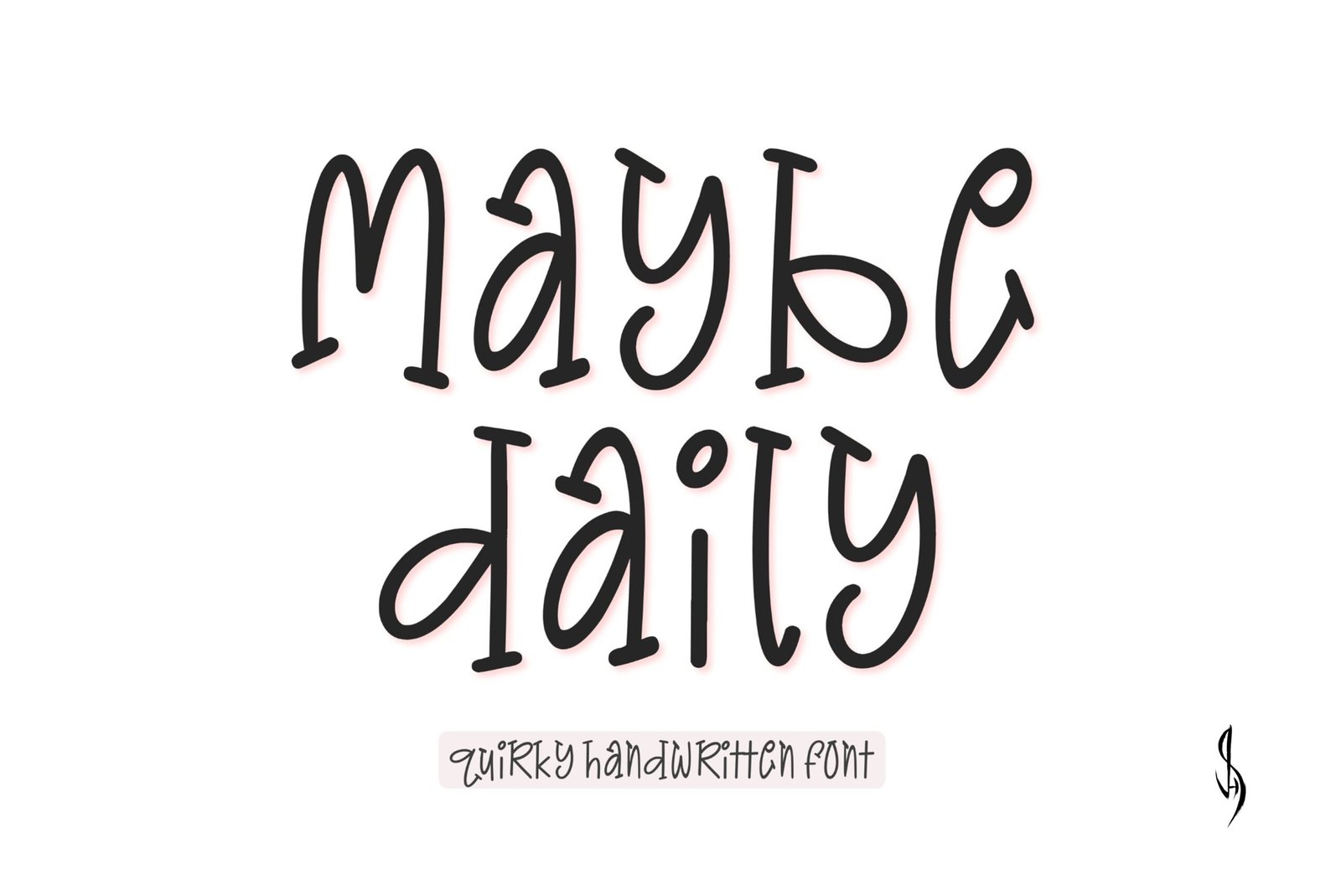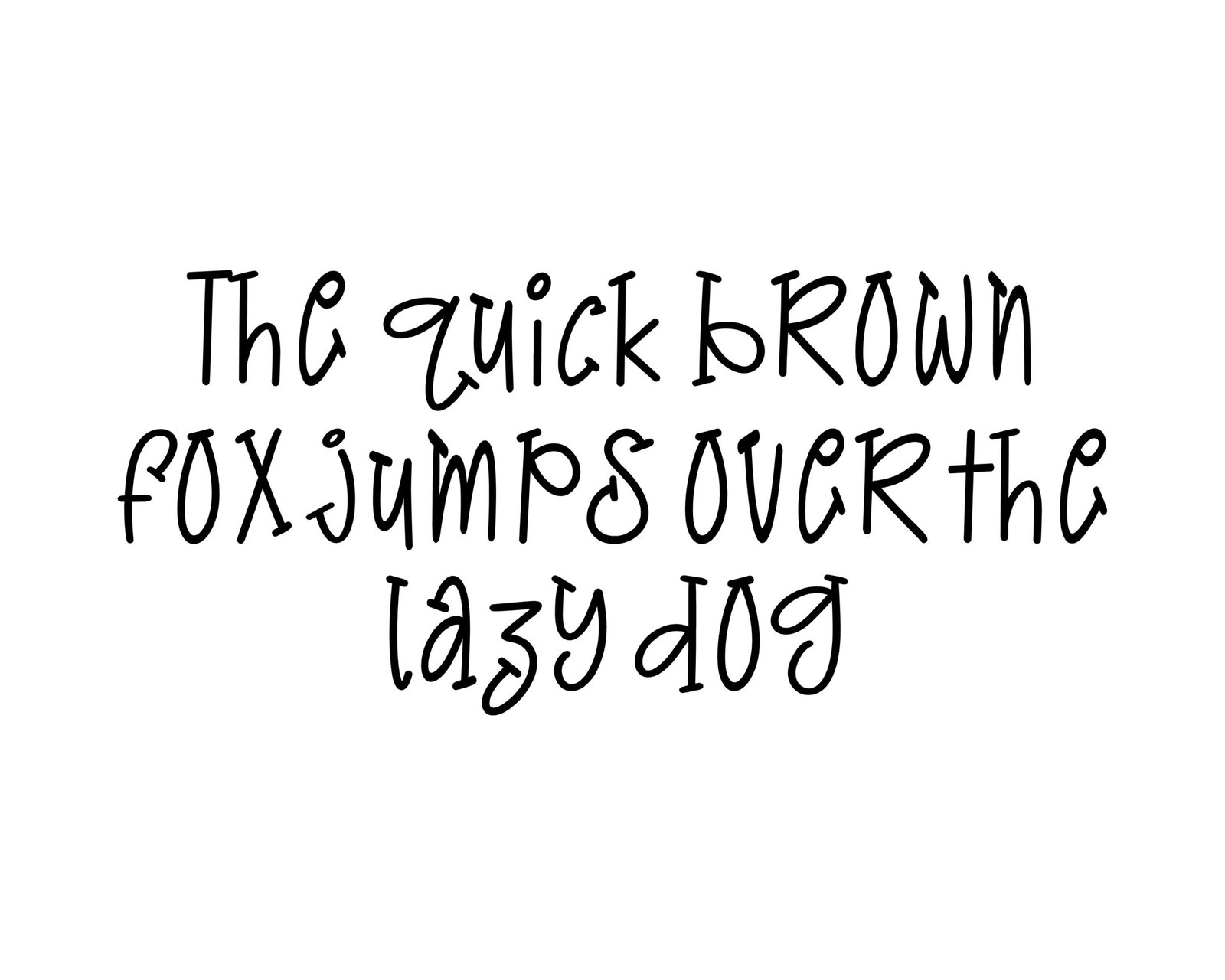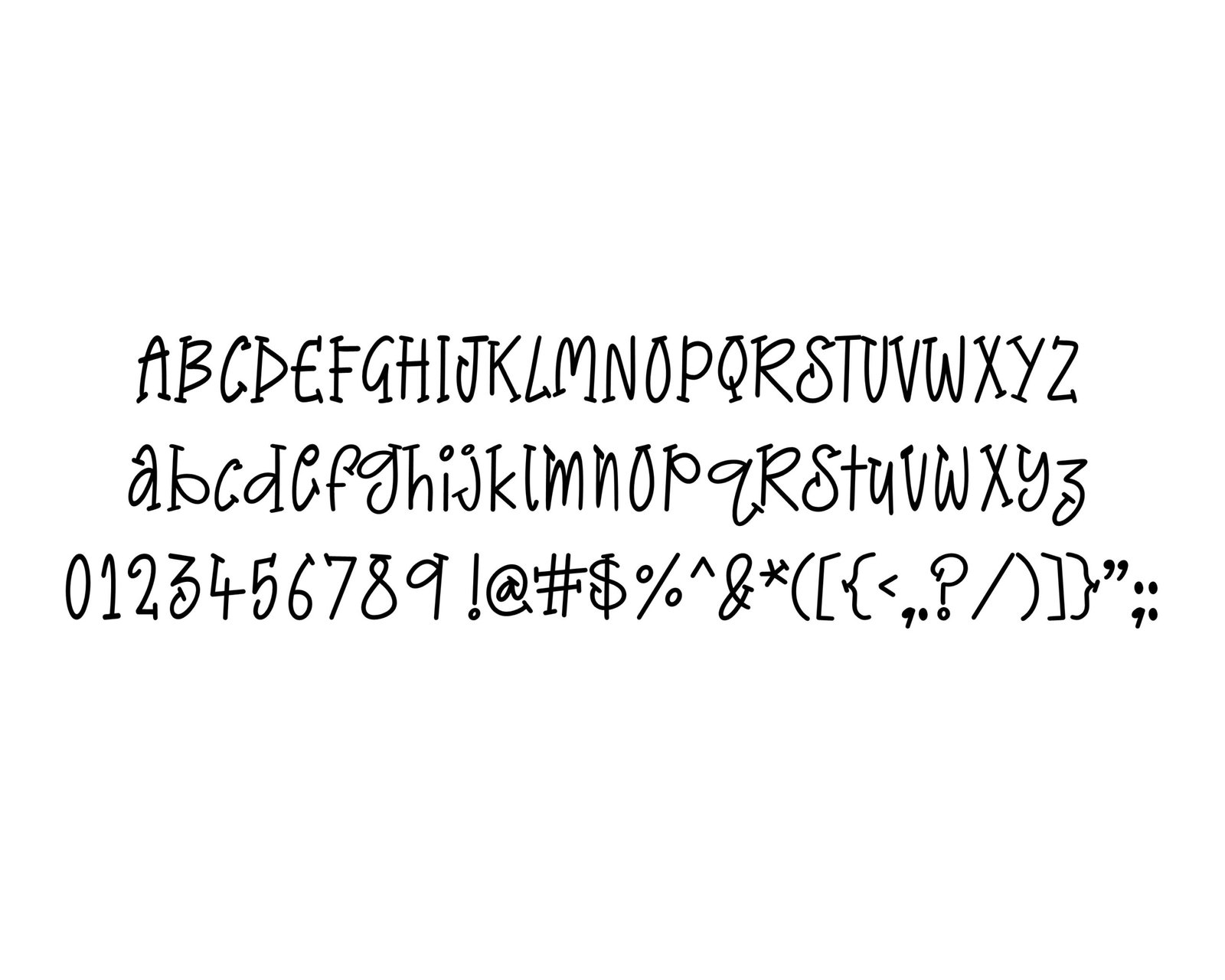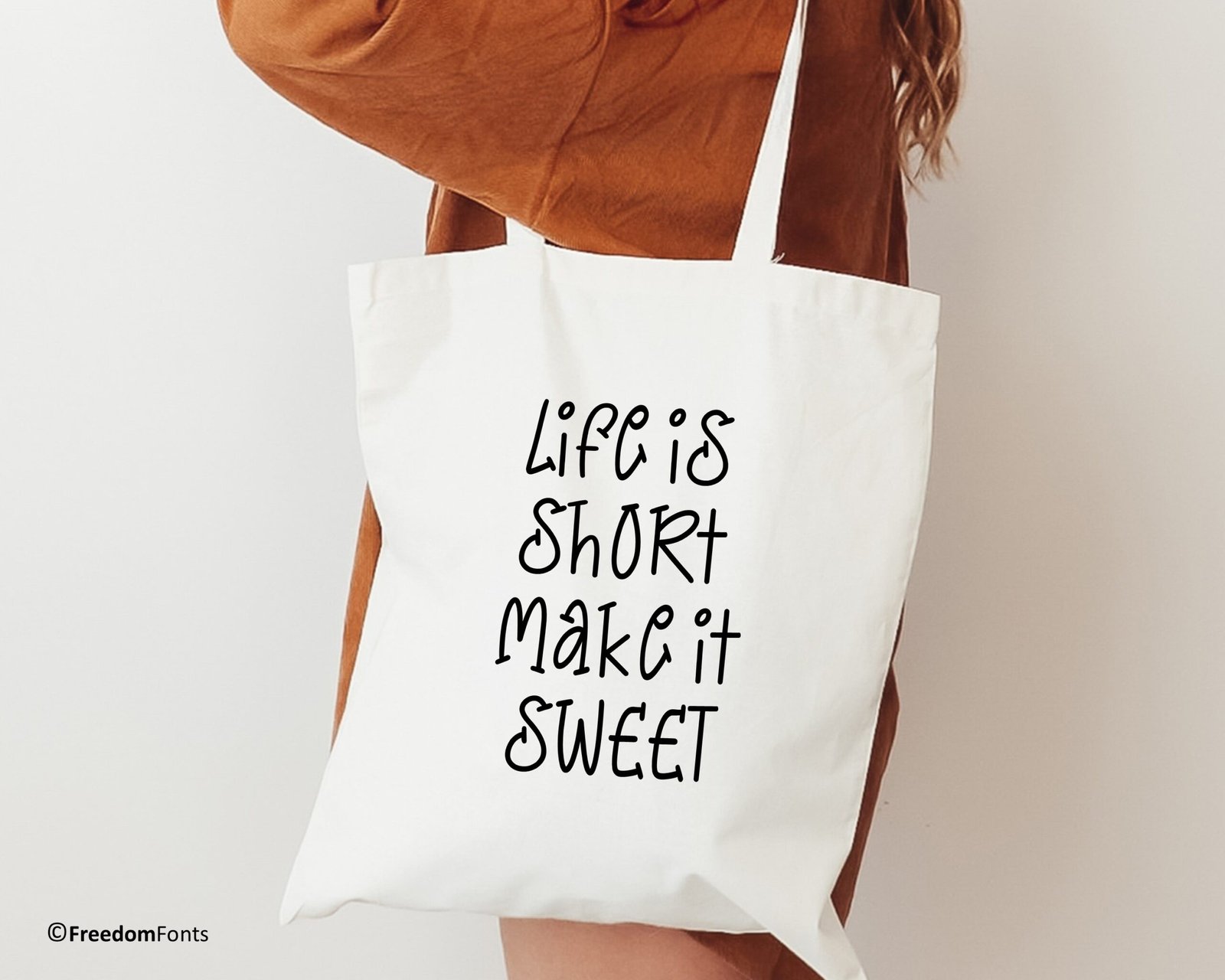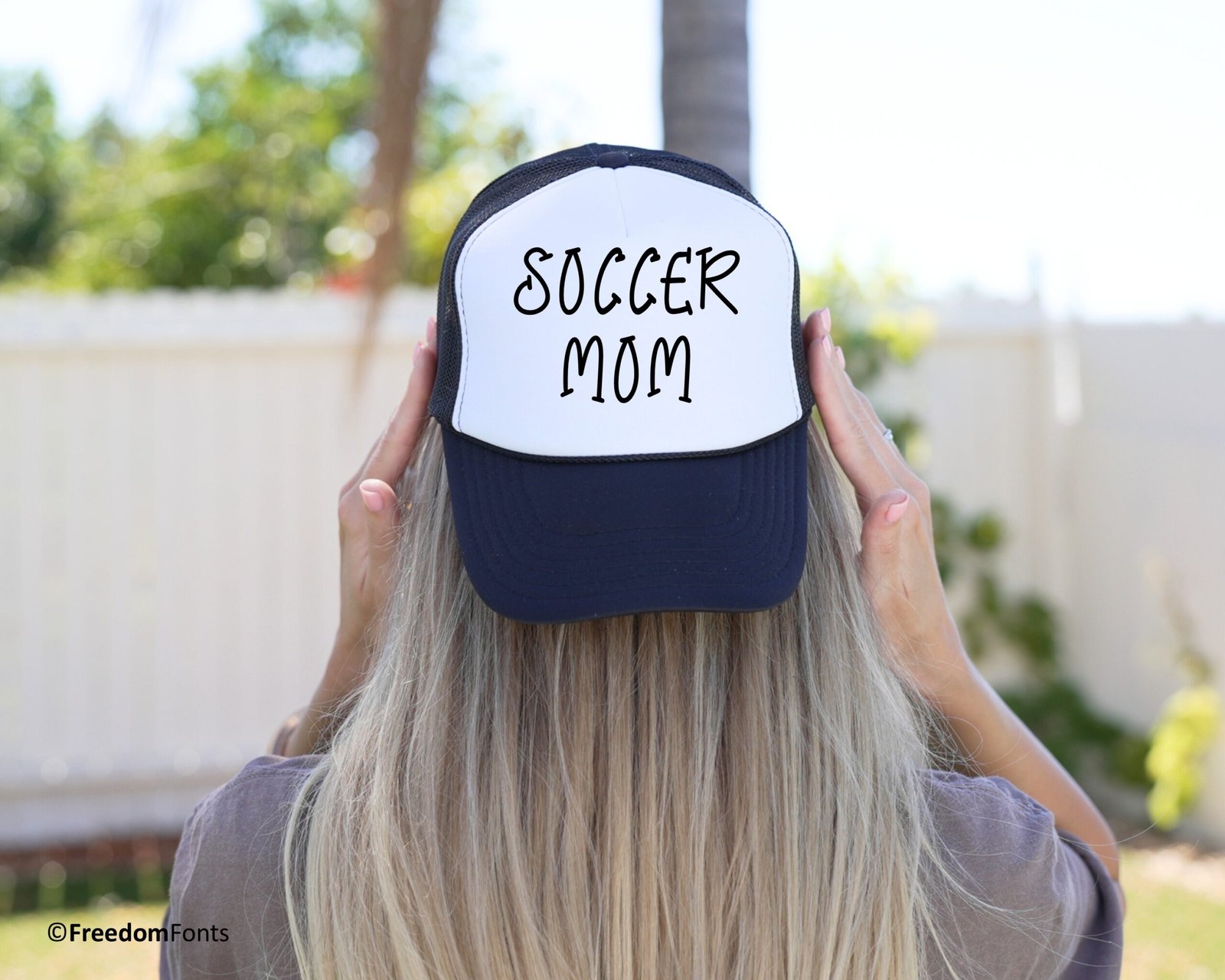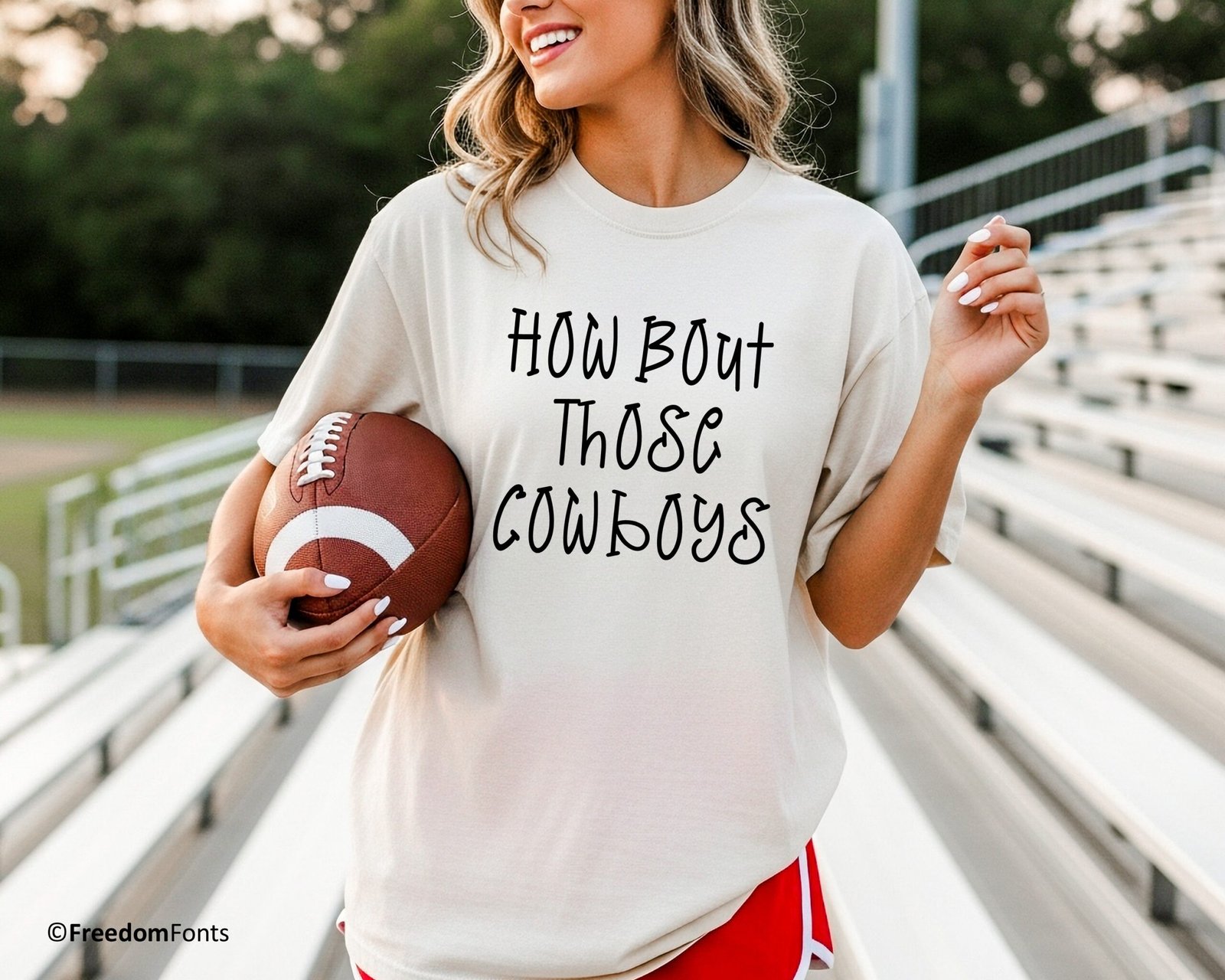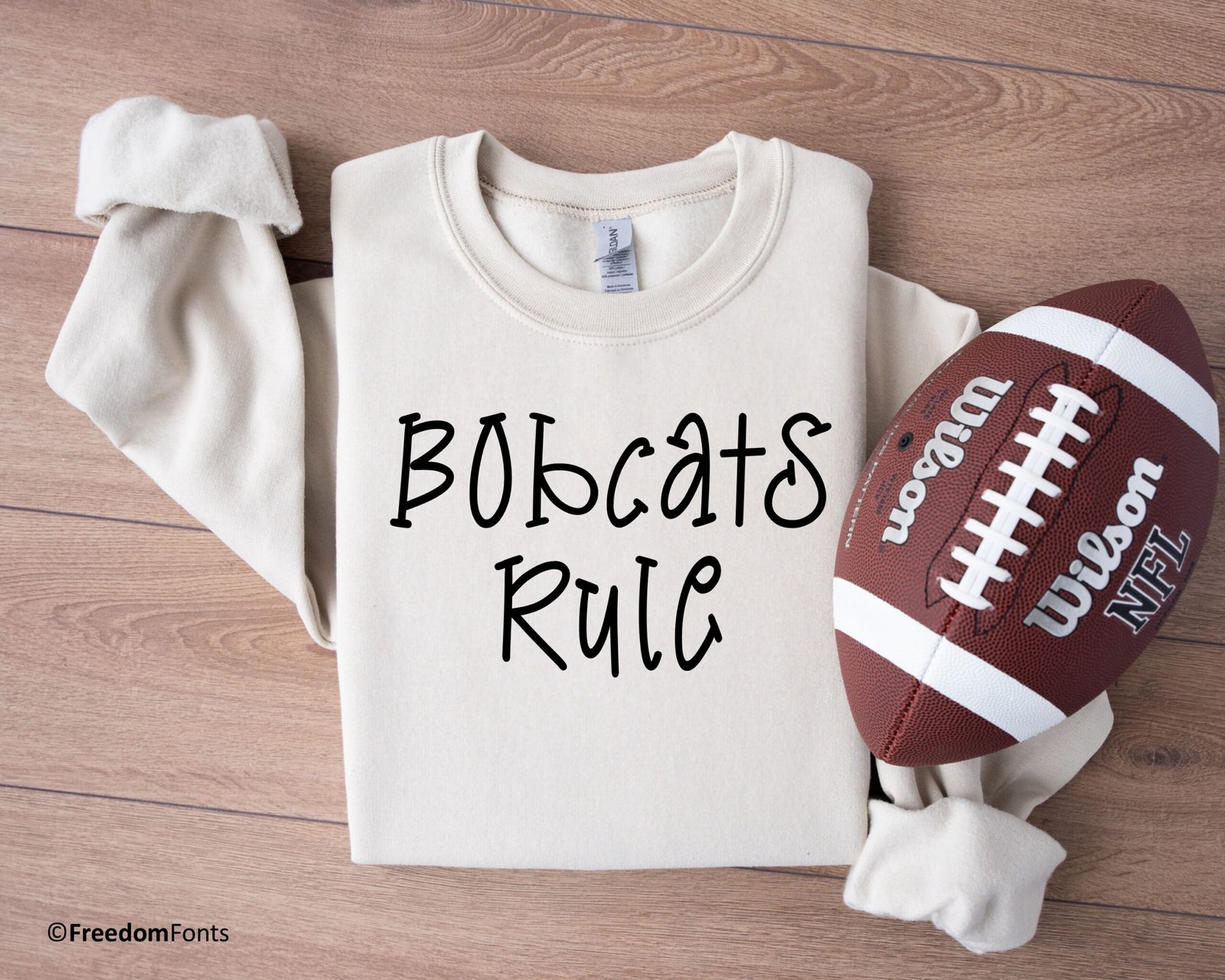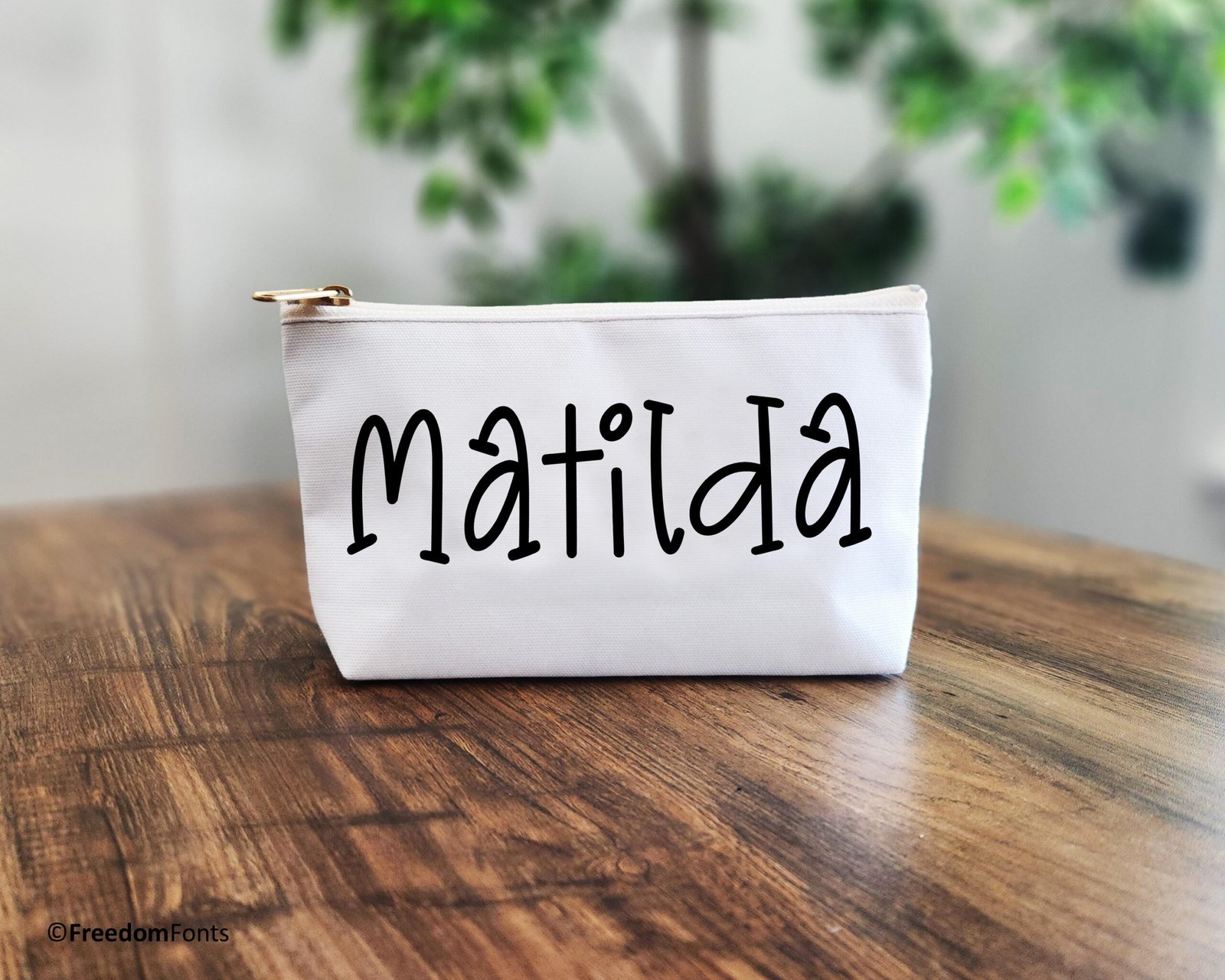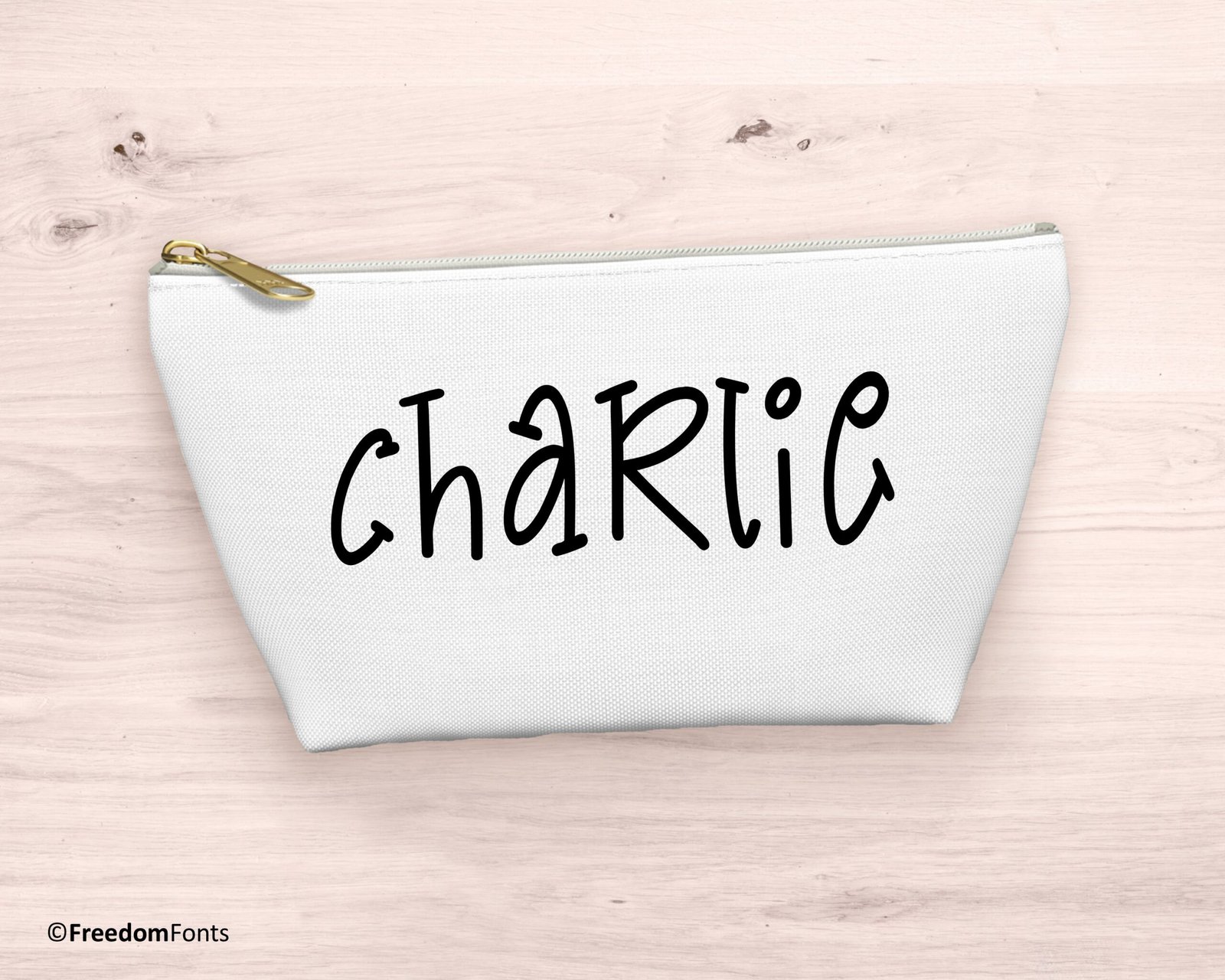
Maybe Daily Font
Quirky handwritten font. “Maybe Daily”. Perfect for advertising and display purposes, including banners, book covers, shirts, posters, logos and much more!
Font includes all upper and lowercase letters, numbers, characters and punctuation.